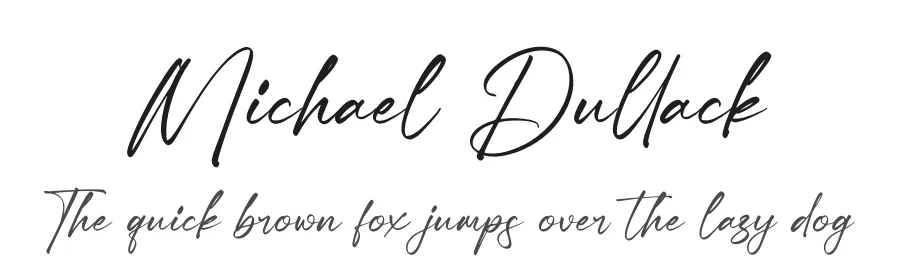
About Abigaila Signature Font
Abigaila Signature Specifications
| Font Family | Abigaila Signature |
| Full Name | Abigaila Signature |
| Glyph Count | 302 glyphs |
| Designer | Glorytype |
Abigaila Signature supports 222 languages.
Abigaila Signature Font is a script font that shines as a display or heading face. Pair it with a clean sans-serif or serif font for body text β the contrast creates a clear hierarchy while the two styles stay balanced and easy to read.